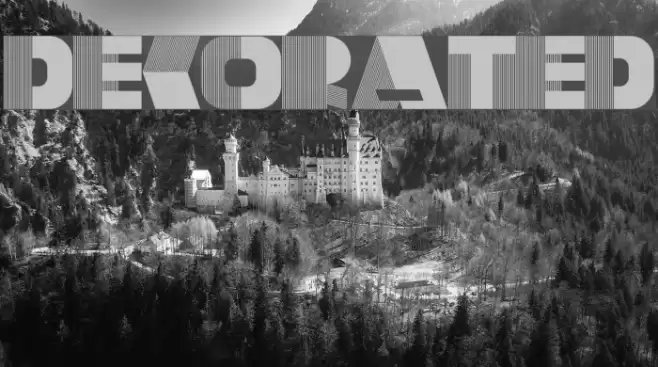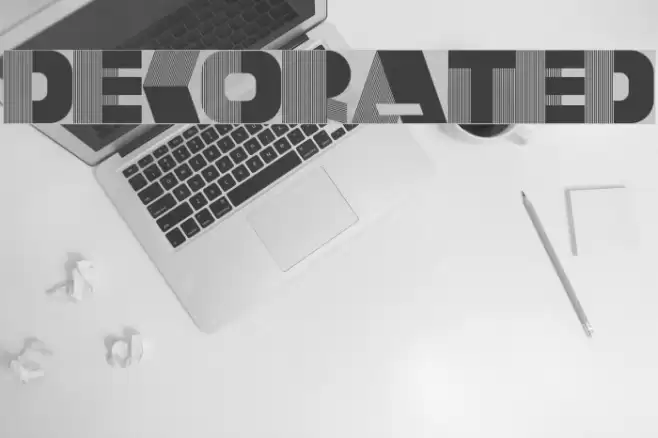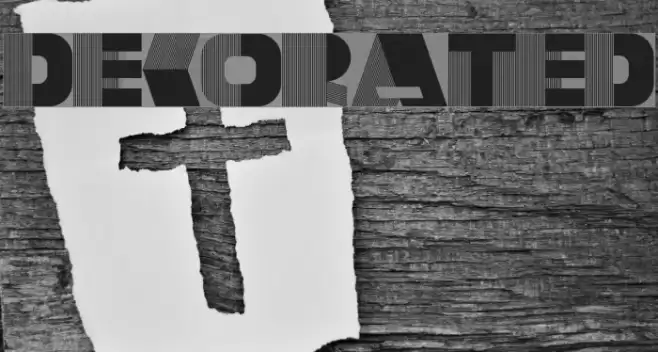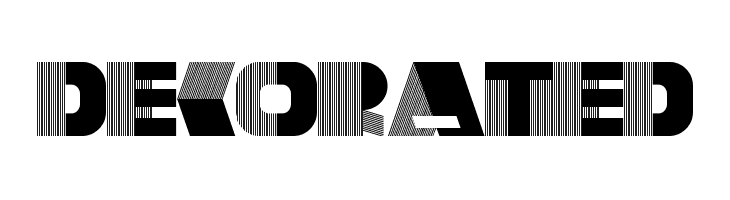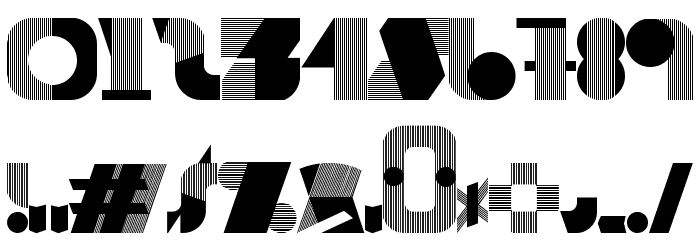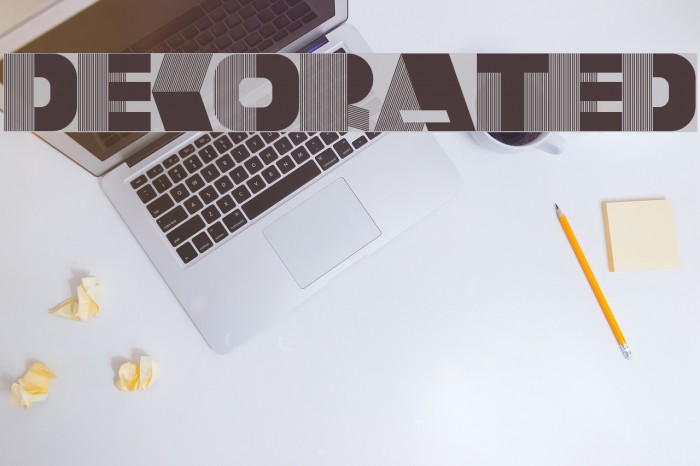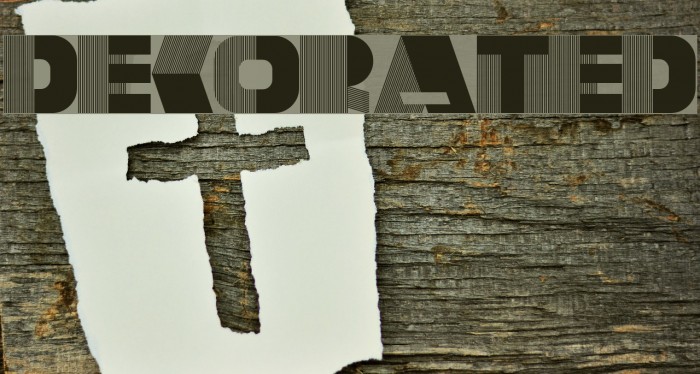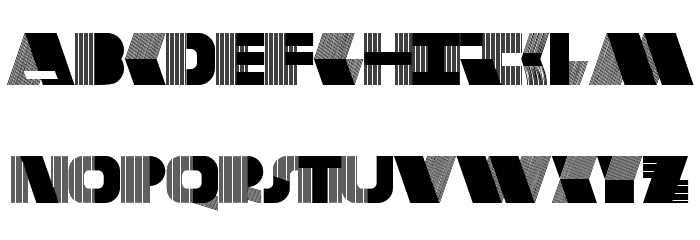
DecoRated Font
DecoRated Description
This font features a bold and striking design with a unique combination of solid and striped patterns. Each character is crafted with a mix of filled and linear elements, creating a dynamic and eye-catching appearance. The uppercase letters are particularly prominent, with a strong geometric influence that gives them a modern and artistic flair. The numbers and special characters maintain this bold style, ensuring consistency across all elements. This font is perfect for projects that require a standout visual impact, such as posters, branding, or any creative work that demands attention.
A bold, modern font with a mix of solid and striped geometric patterns from Retro fonts.
- Proposed Projects: Ideal for posters, branding, creative projects, and any design requiring a bold visual impact.